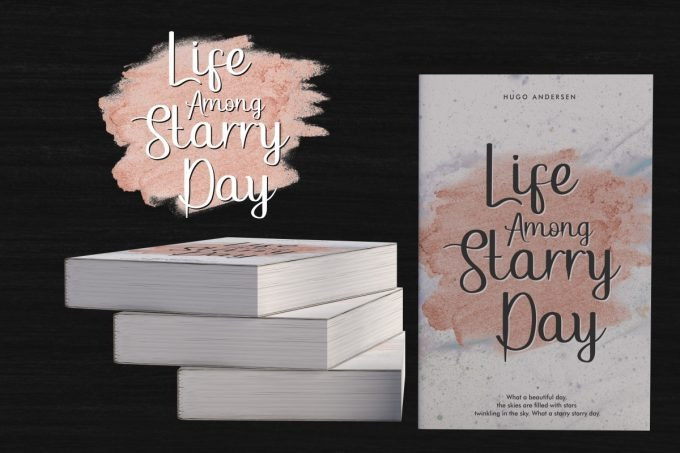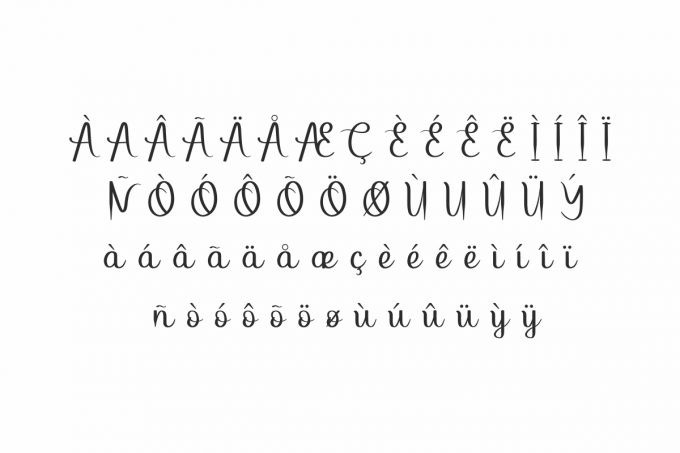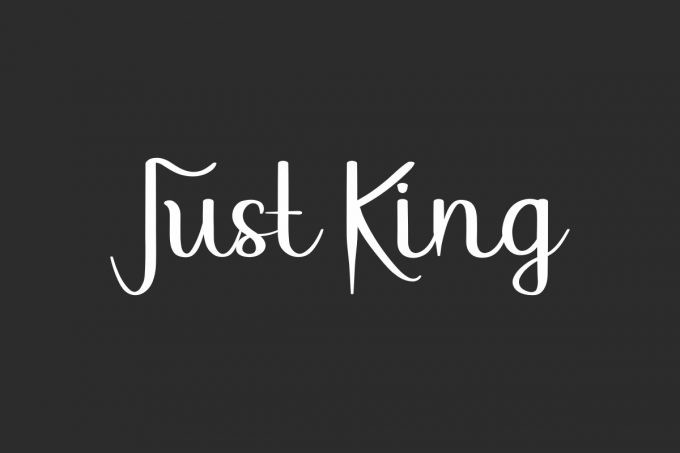
Just King Script Font
Just King Font is a casual handwriting font, great for signature, branding, wedding, headline, social media post etc. This font is crafted carefully in every its single letter so we can make sure it has special looking, exclusive and This one should make your designs instantly standout and stunning !